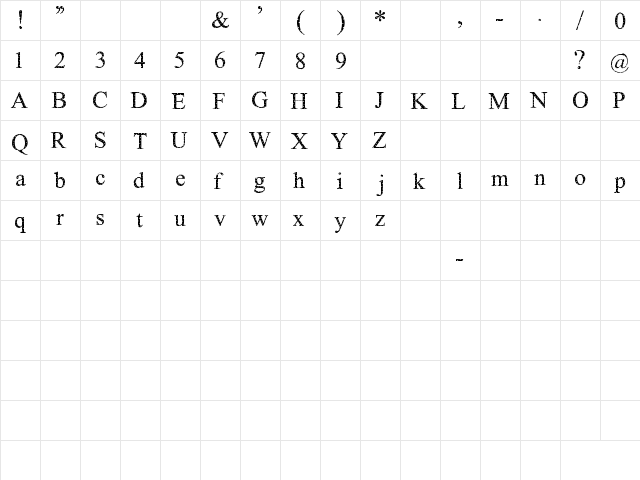
Ribbon Happy Regular
Design Context for Ribbon Happy Typeface
Ribbon Happy is a composed and adaptable typeface that performs quietly and consistently across a wide range of design contexts.
Pro Tip: Use Ribbon Happy in both headline and body roles to test its range before committing to a single application.